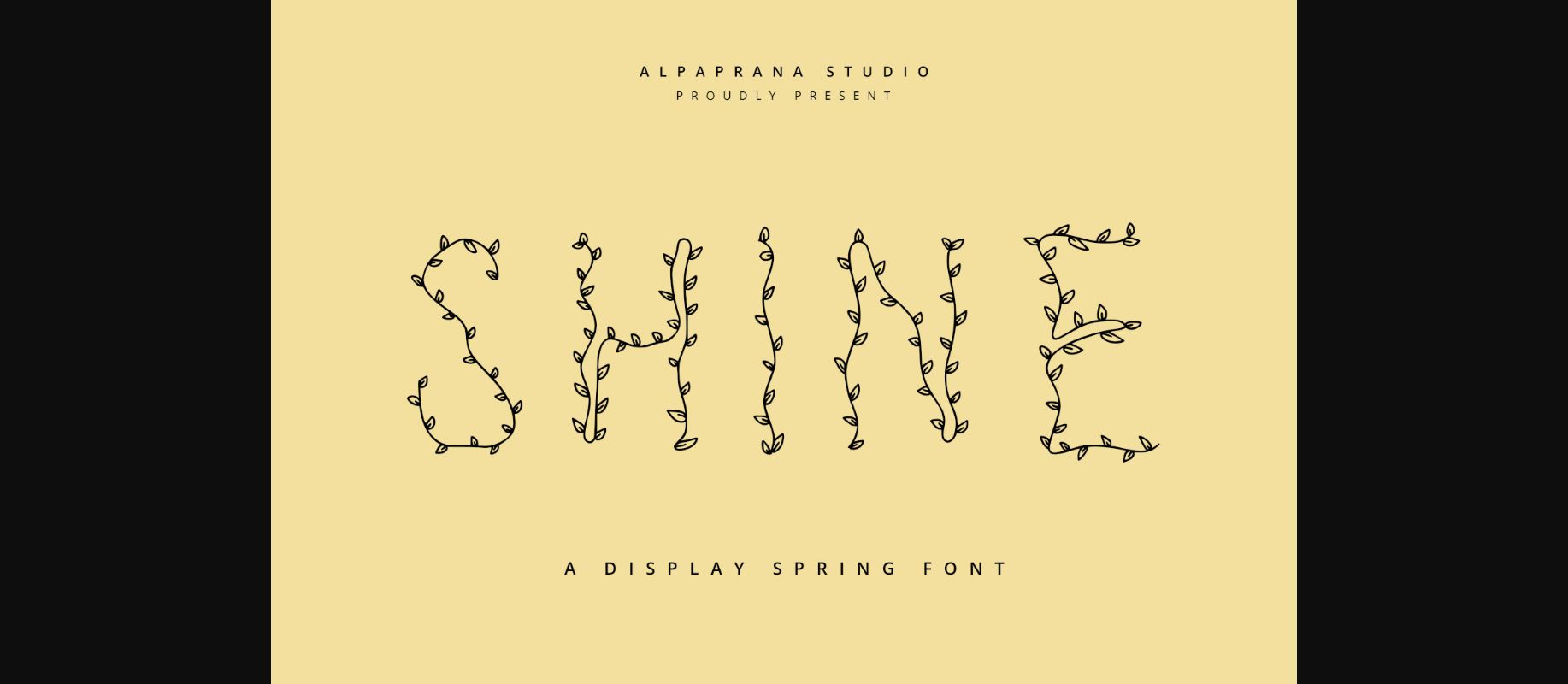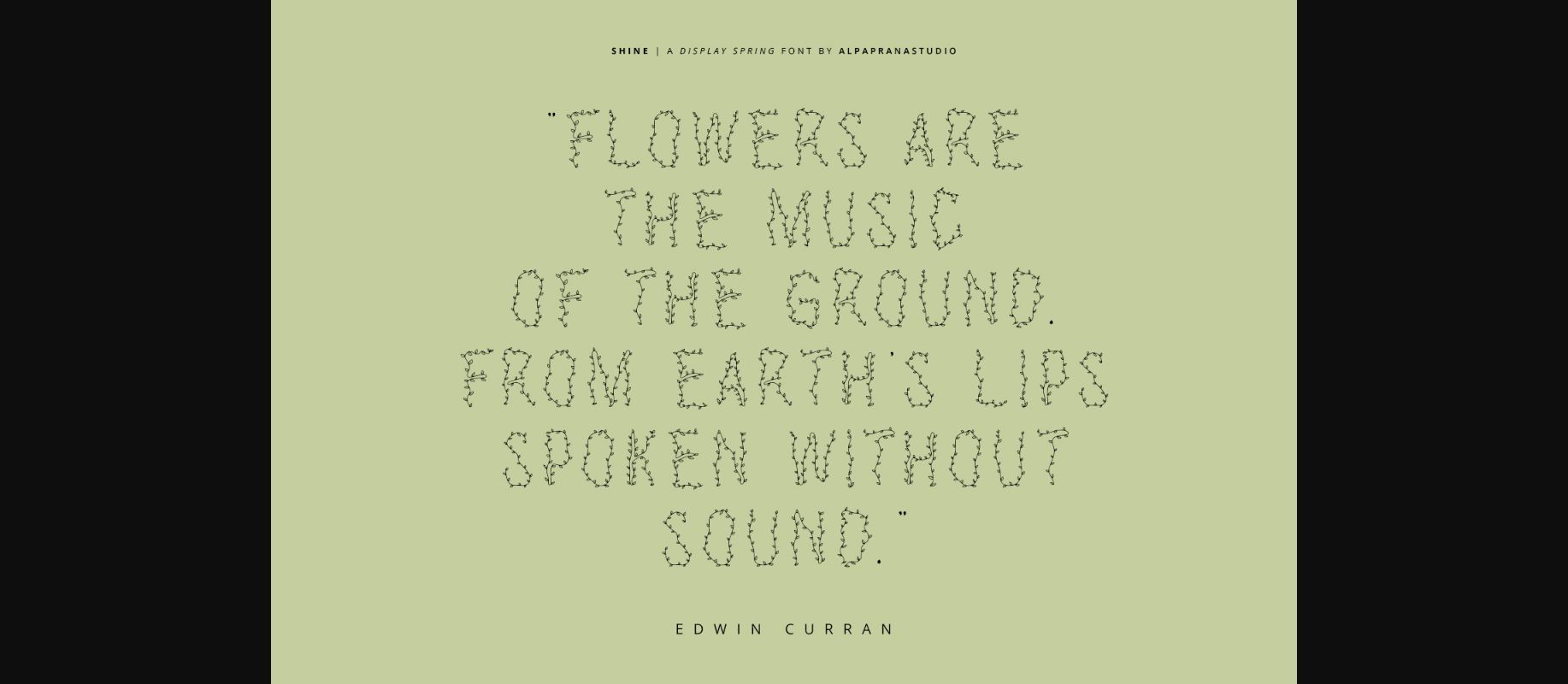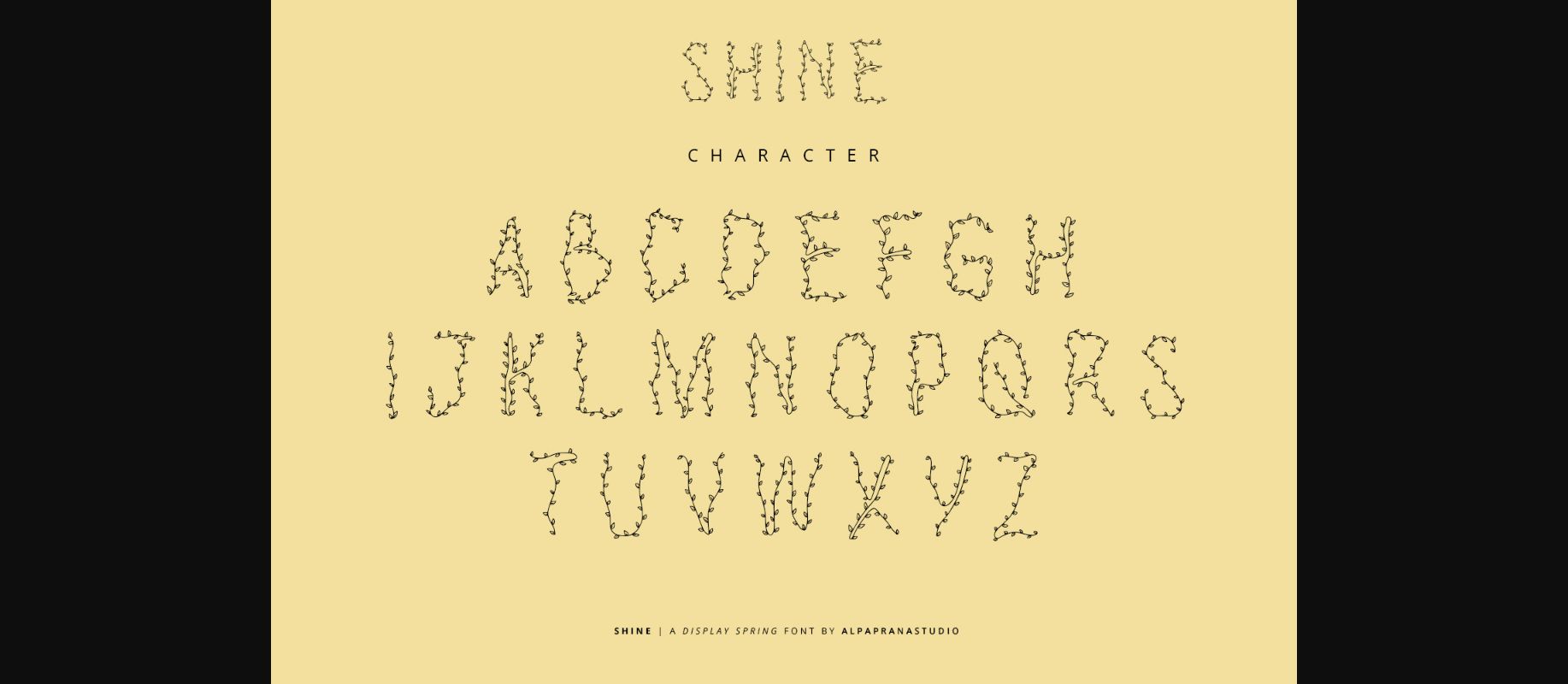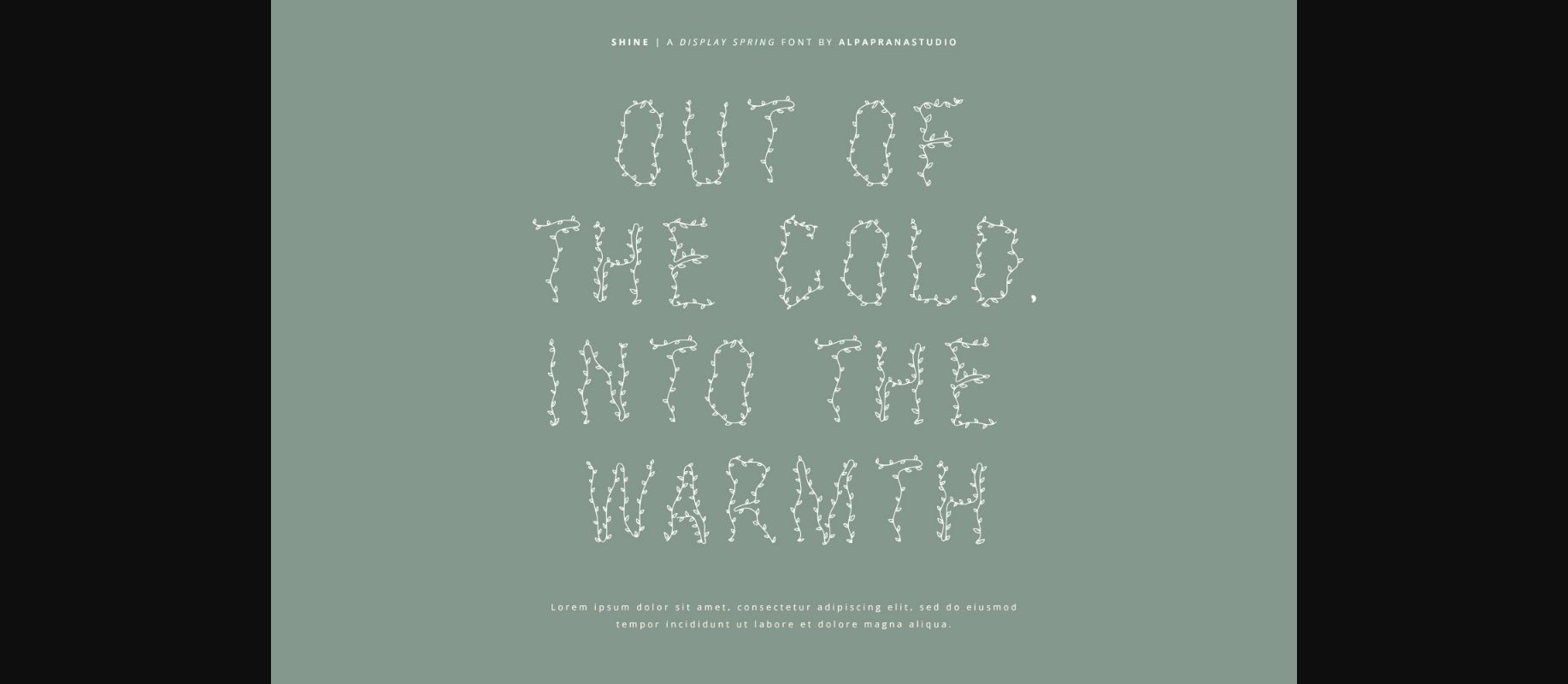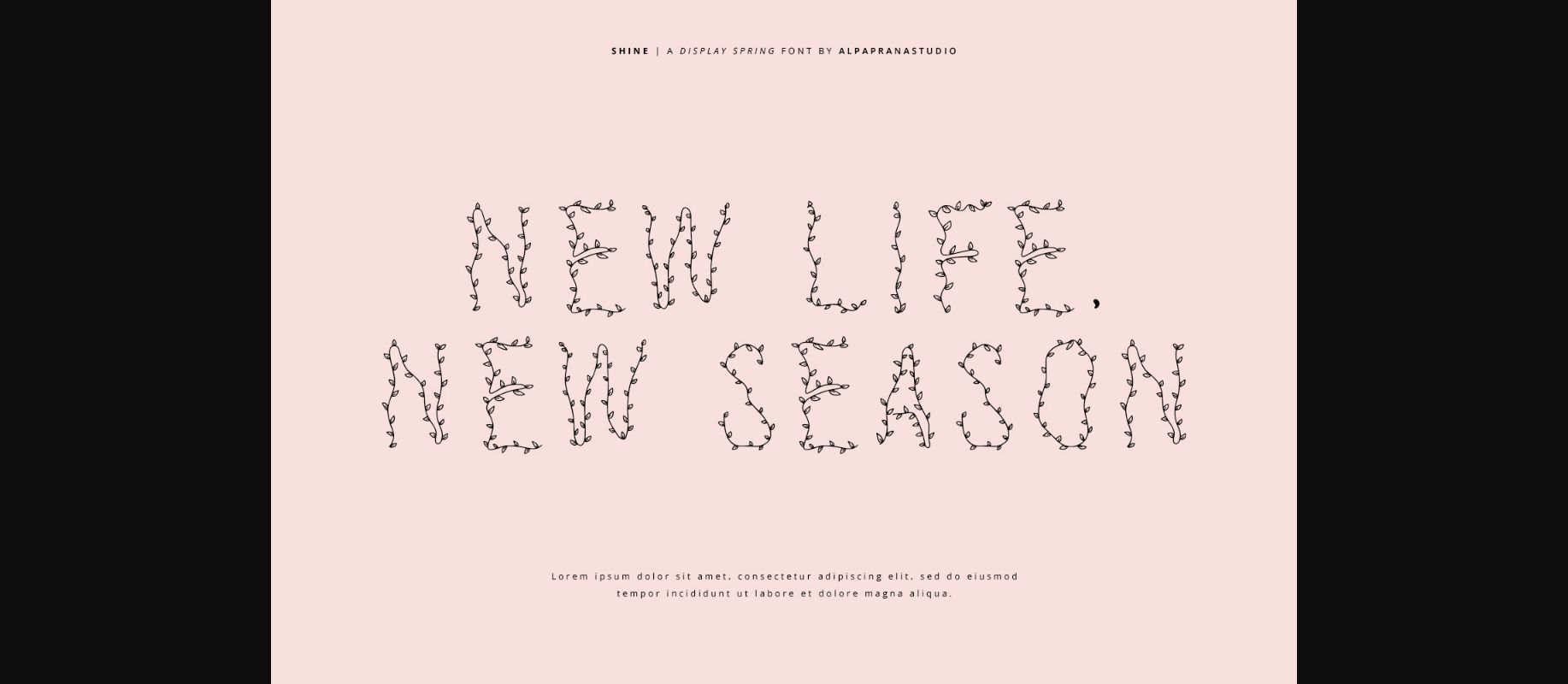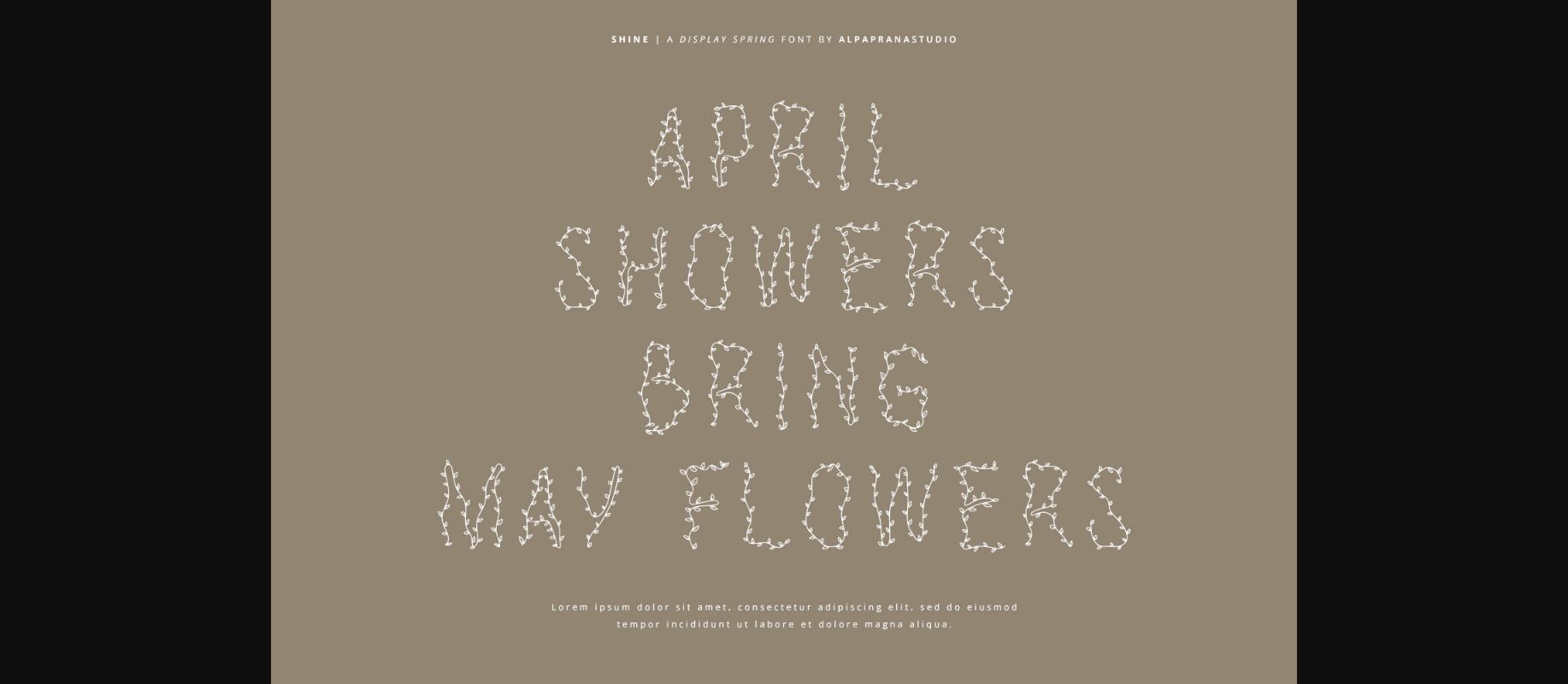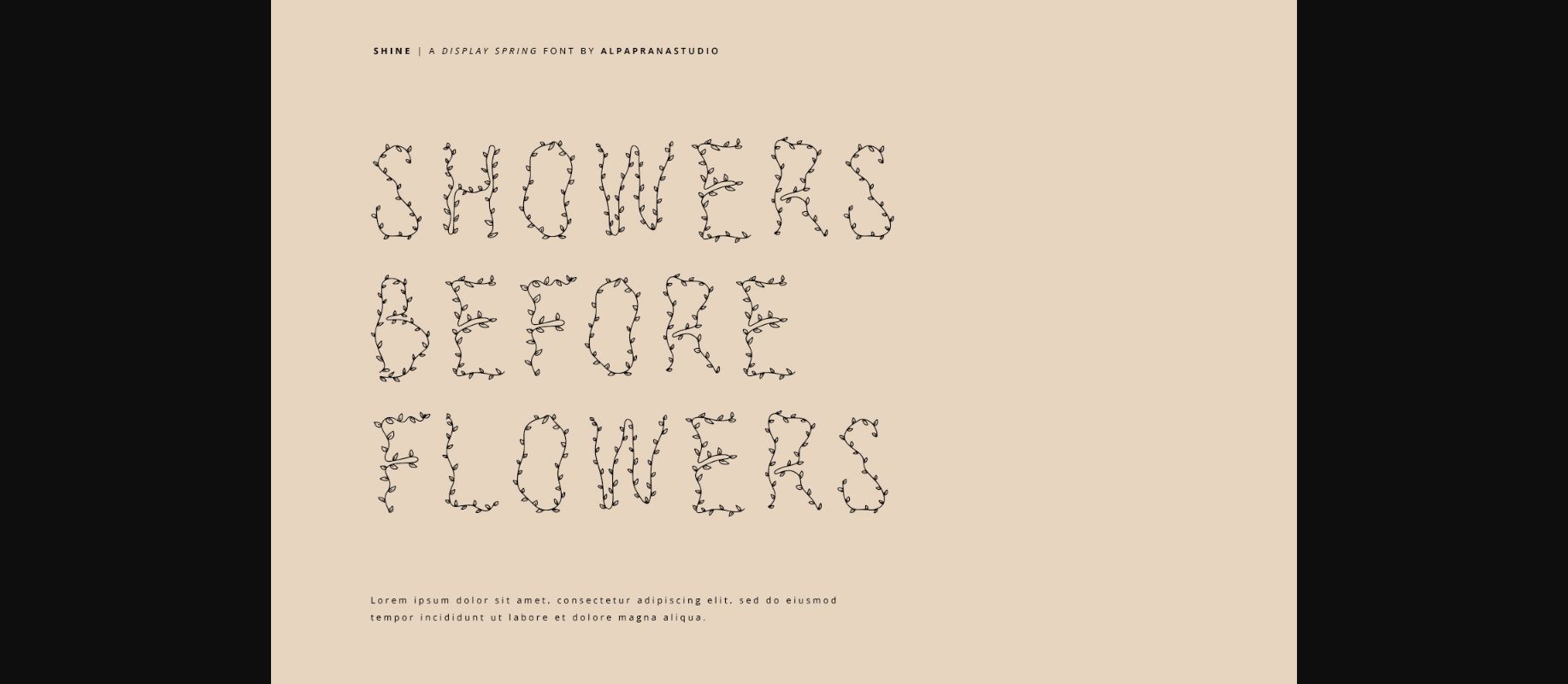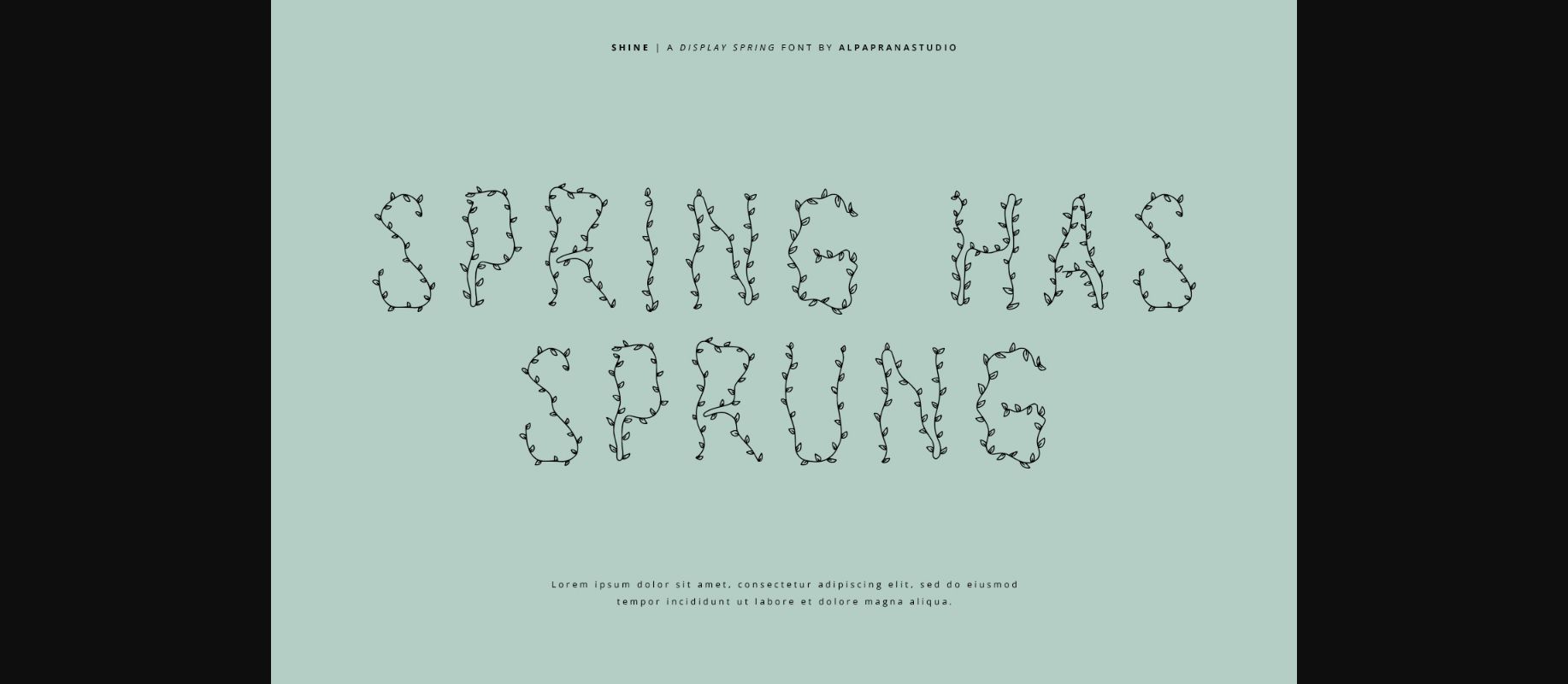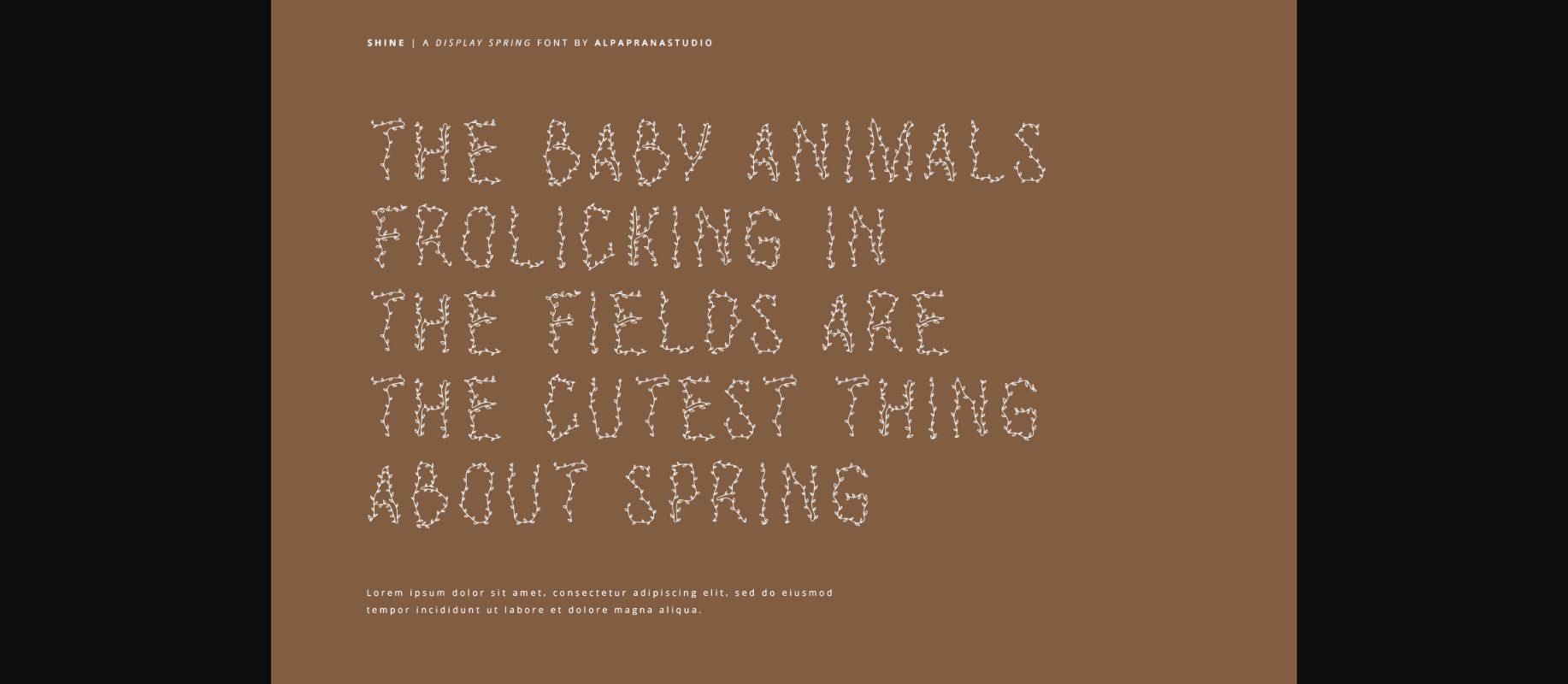
Shine Font
About Shine Font
Shine is a delightful decorative font inspired by botanical themes, featuring dainty and intricate leaves adorning the characters. The font has a delicate and elegant feel, perfect for adding a touch of whimsy to invitations, cards, and other designs. With its unique design and playful nature, Shine is sure to stand out and leave a lasting impression.